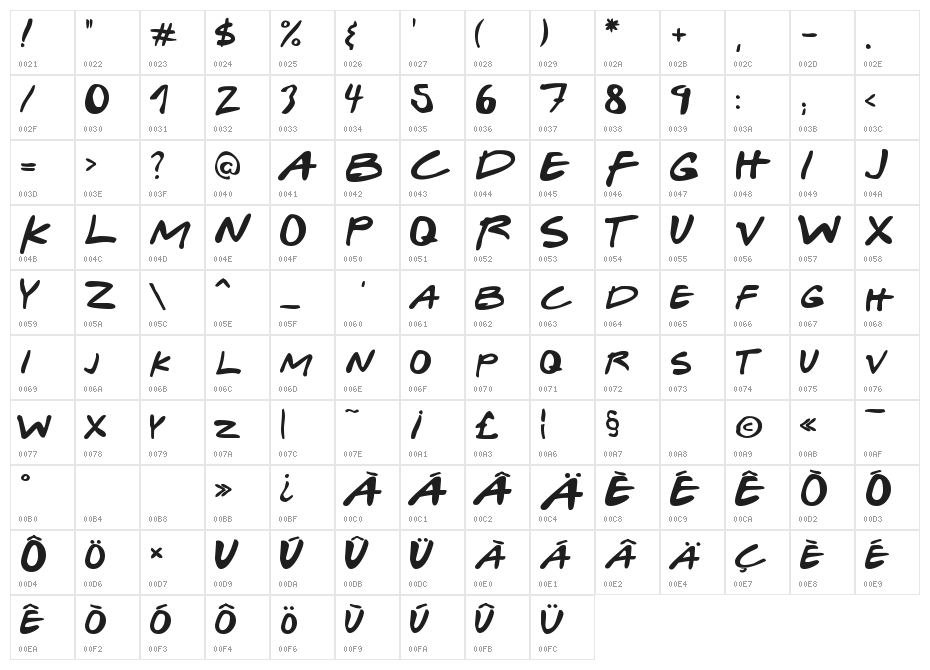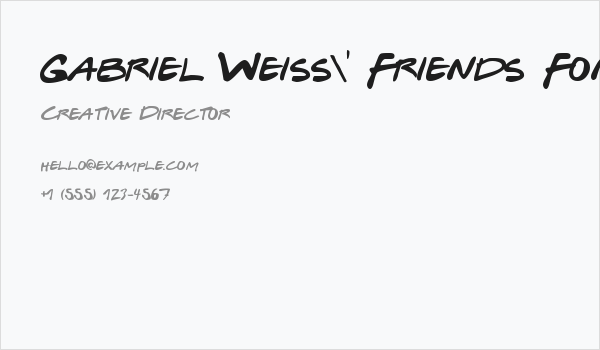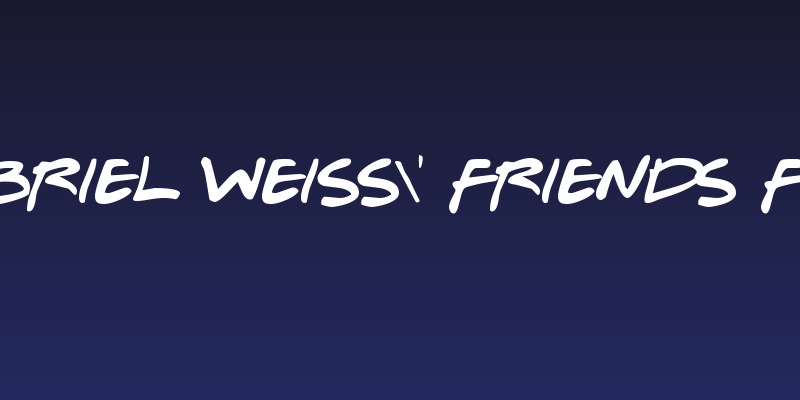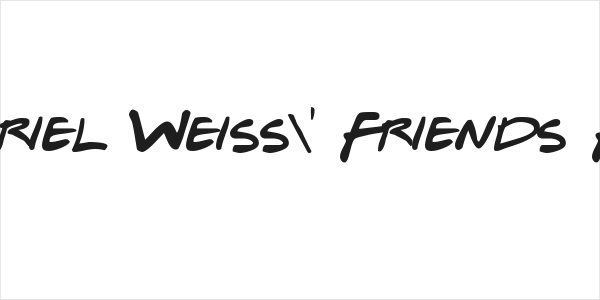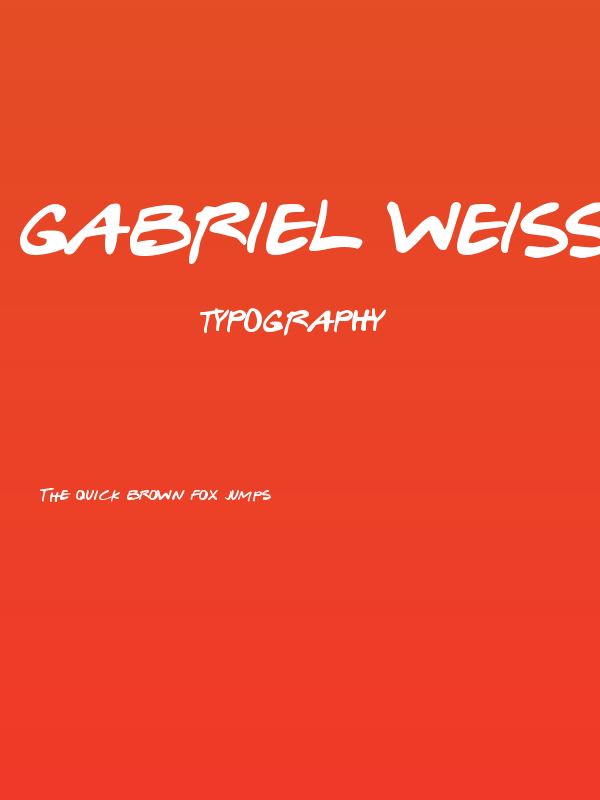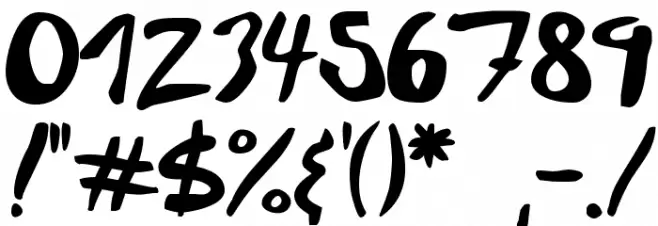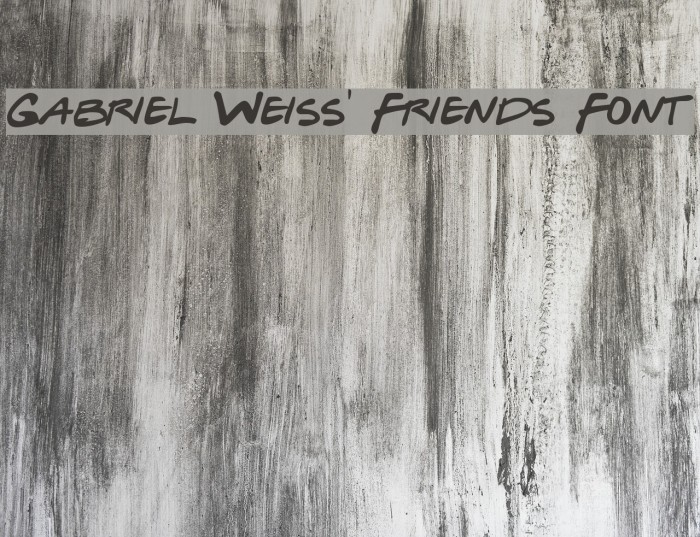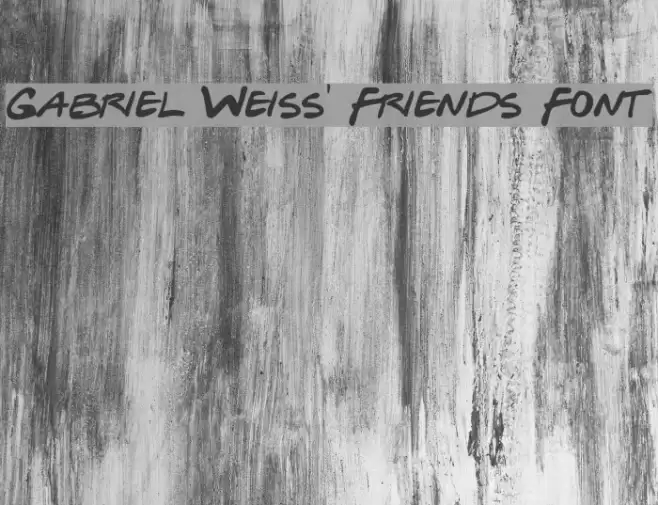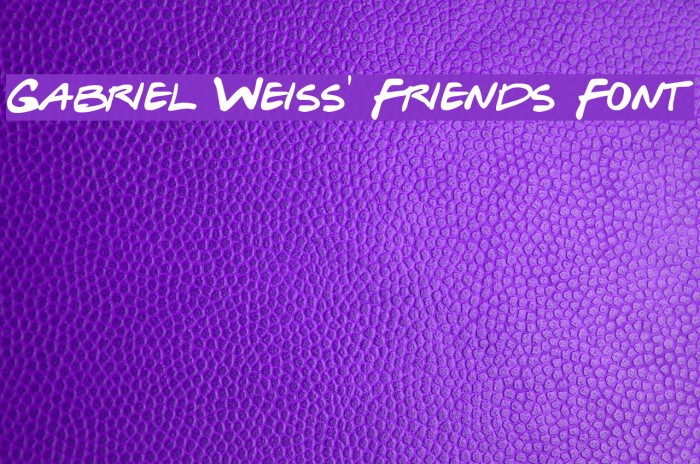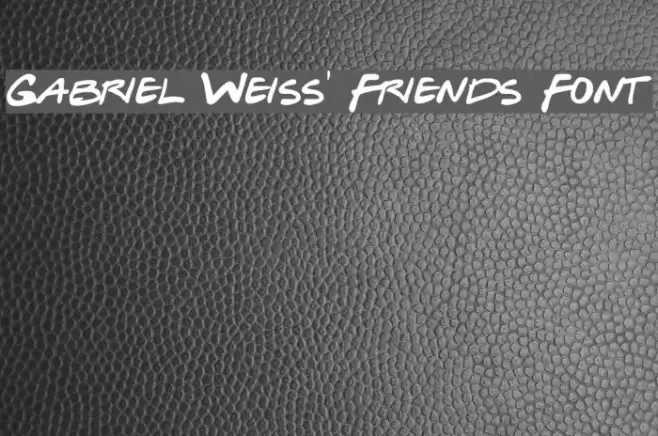
Gabriel Weiss' Friends Font Font
Gabriel Weiss' Friends Font Description
This font features a bold, handwritten style with a playful and casual appearance. The characters are slightly slanted, giving it a dynamic and energetic feel. The strokes are thick and consistent, providing a strong visual impact. The uppercase and lowercase letters maintain a cohesive style, with rounded edges and smooth curves. The numbers and special characters follow the same design principles, ensuring uniformity across all elements. This font is ideal for projects that require a personal touch or a friendly, approachable vibe.
| Overall Style | Casual |
| Proposed Projects | Ideal for greeting cards, invitations, posters, and social media graphics. |